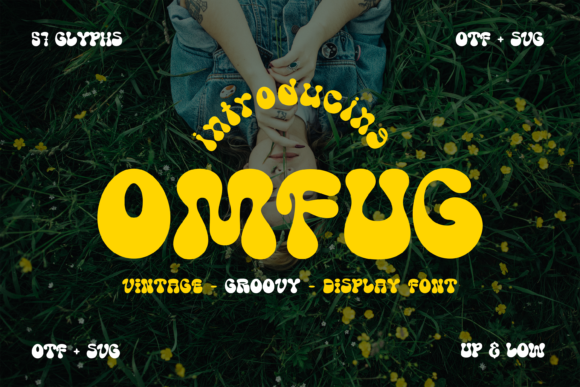
Welcome to the realm of visual artistry, where Omfug Font reigns supreme. An exceptional display font, Omfug bursts onto the scene with its audacious personality and infectious energy. Created by the masterminds at Design Crew, this font is an embodiment of creativity, oozing with charm and individuality.
Omfug possesses an inherent charisma that instantly captivates the senses. Its bold and playful strokes dance across the page, exuding a retro charm that transports you back to an era of unbridled optimism and boundless expression. It is not merely a font; it is an experience, a journey into the depths of artistic exploration.
Imagine your words, adorned with the splendor of Omfug, gracing the covers of magazines, captivating audiences with their magnetic allure. Picture your branding projects imbued with an unforgettable identity, standing out from the crowd with a distinctive flair. Omfug has the power to transform ordinary designs into extraordinary masterpieces, leaving an imprint on the hearts and minds of those who behold it.
In the world of product packaging, Omfug emerges as a game-changer. Its dynamic presence commands attention, making your products leap off the shelves and into the hands of eager consumers. Whether it's a sleek logo, an evocative tagline, or an informative product description, Omfug adds that extra spark, that touch of magic that ignites the fire of desire.
For those seeking a font that thrives in the vibrant realm of social media, look no further than Omfug. Its playful nature lends itself perfectly to eye-catching posts, captivating stories, and engaging reels. Let your words dance and your visuals sing as you captivate your audience with the irresistible charm of Omfug.
Weddings, those special occasions that deserve nothing but the best, find their perfect match in Omfug. Its elegant curves and retro sensibilities add a touch of vintage glamour, a hint of nostalgia that evokes memories of timeless romance. Invitations, save-the-dates, and wedding signage adorned with Omfug exude a timeless charm, setting the stage for an unforgettable celebration.
Beyond these specific applications, Omfug shines as a versatile font, ready to elevate any project with its infectious energy. Whether you're creating posters, flyers, brochures, or any other form of marketing collateral, Omfug has the versatility to adapt and excel. Its ability to communicate emotions and capture attention makes it an invaluable asset for designers and marketers alike.